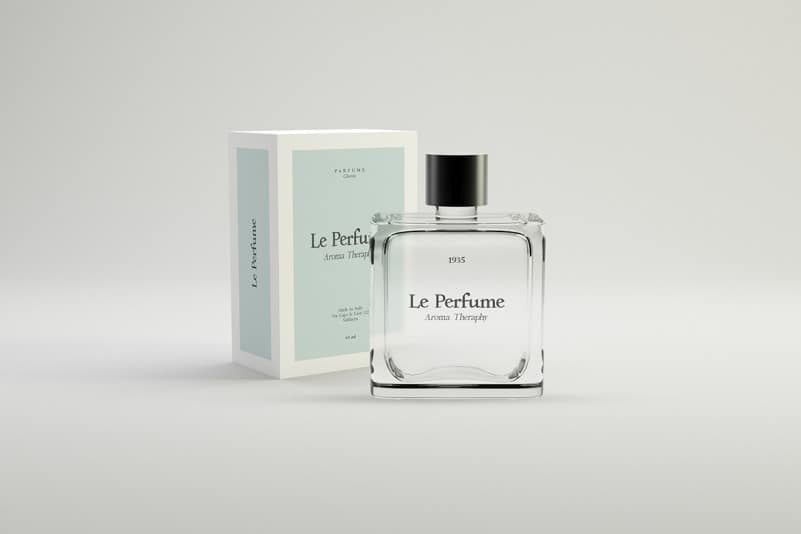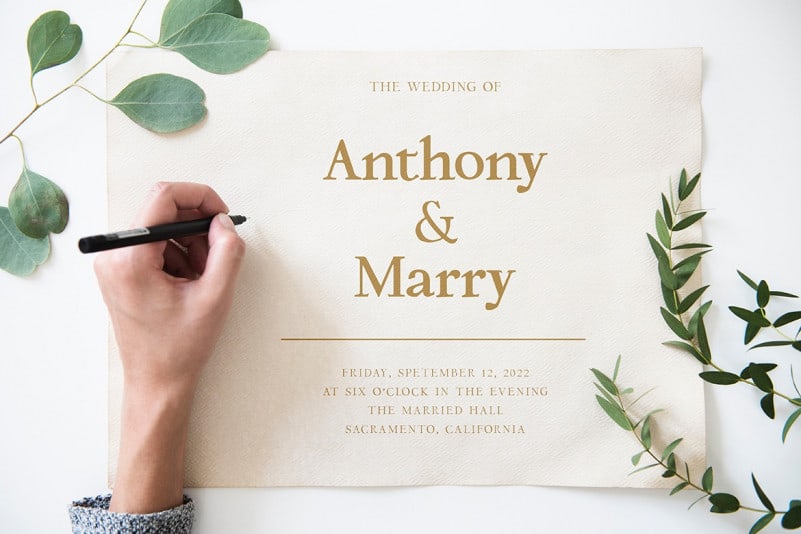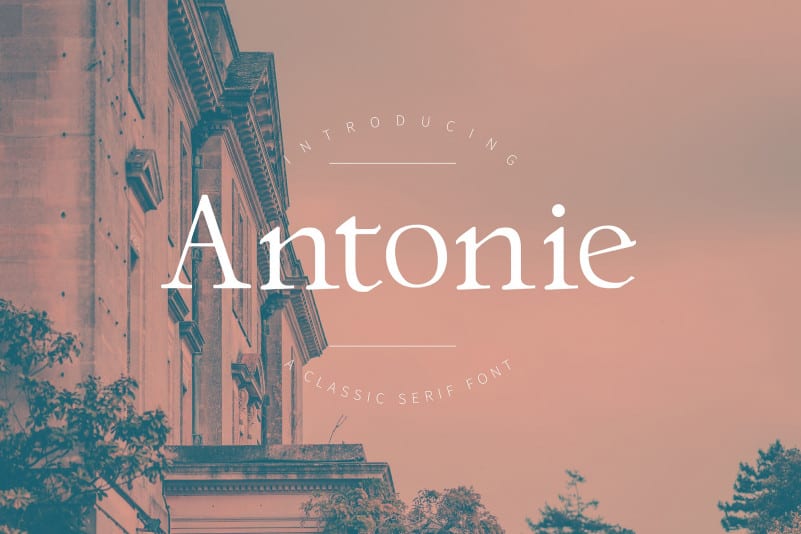
Antonie Serif Font is a classy, bold upper and lowercase typeface that looks incredible in both large and small settings. Made from font designer named Type Factory. And It’s a serif typeface with simple vintage stylistic alternates to choose. Its minimalistic works wonderfully for branding like a logos, graphictee, headlines, posters, packaging and many more! Autheticity is Magnetic! thanks. have a nice day and create something everyday with your imagination.!!!!